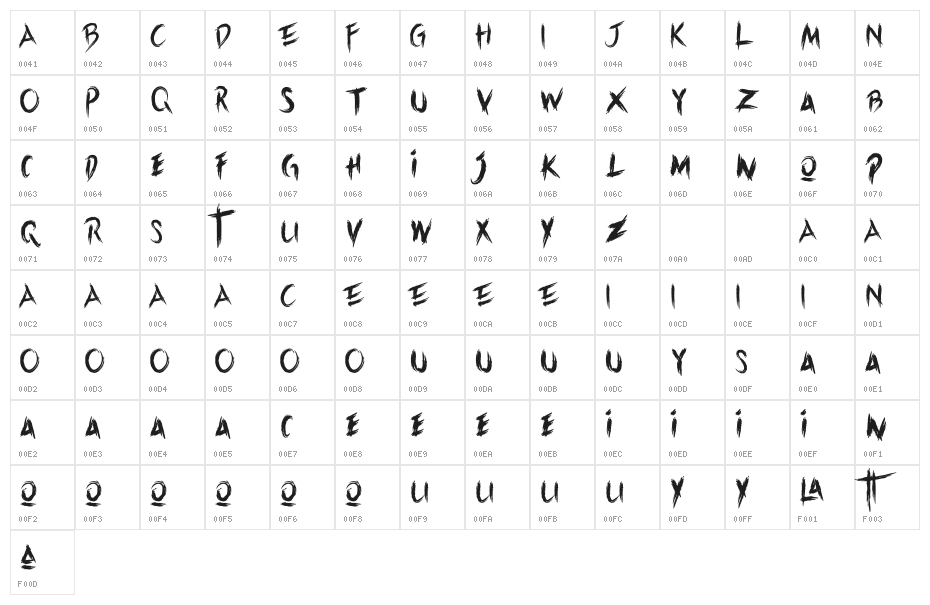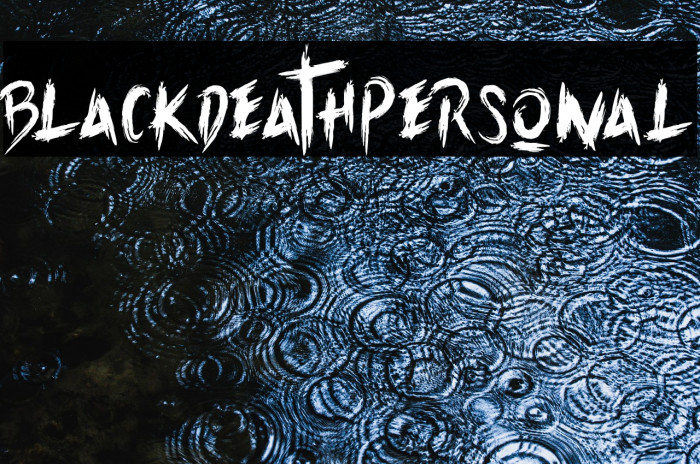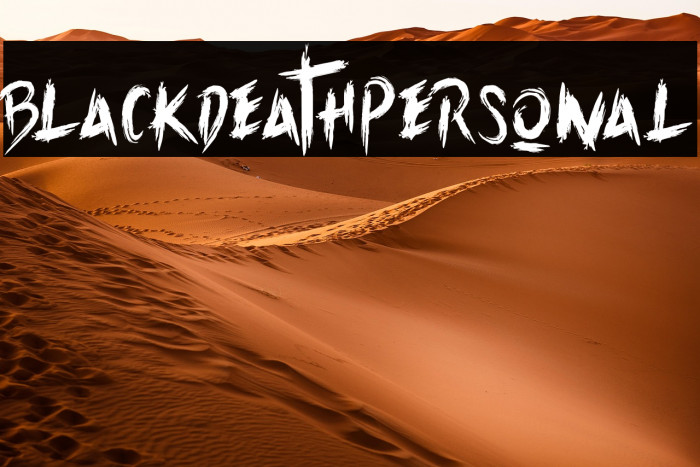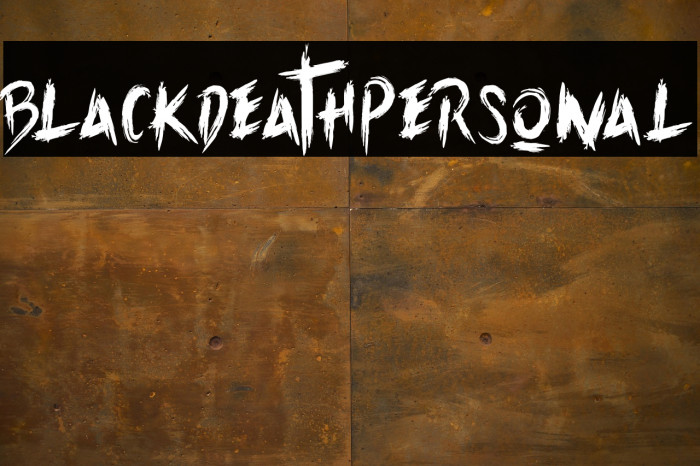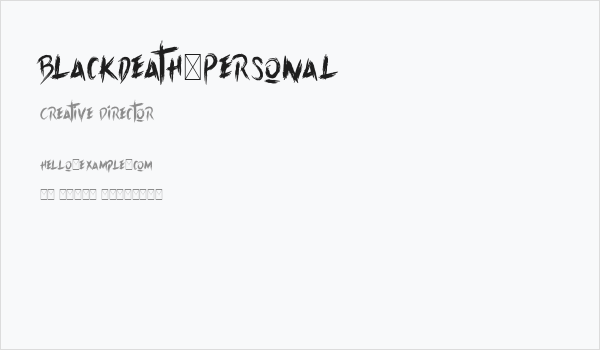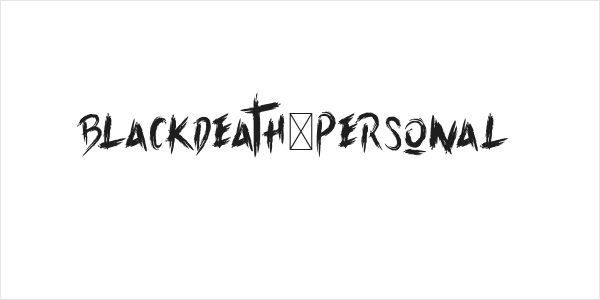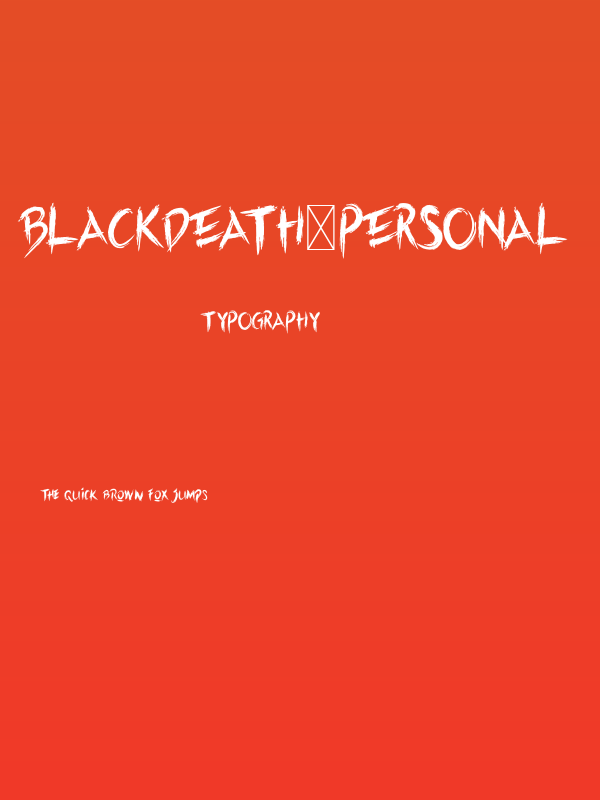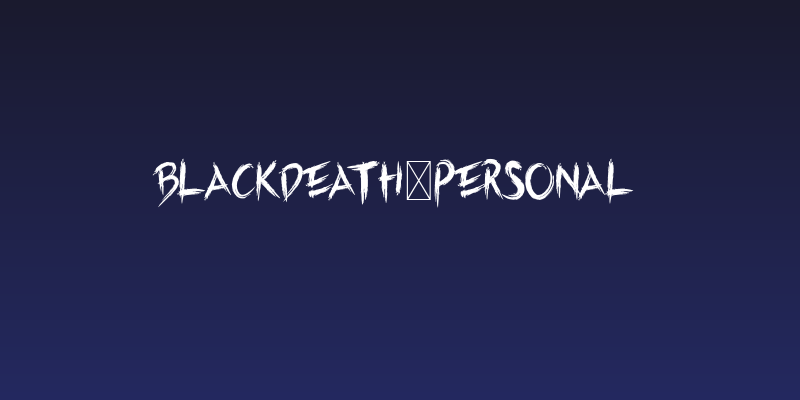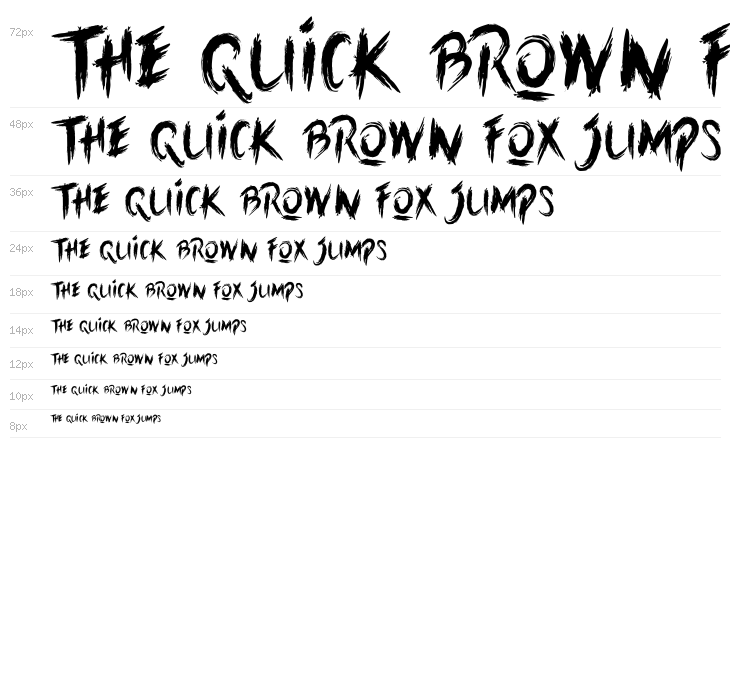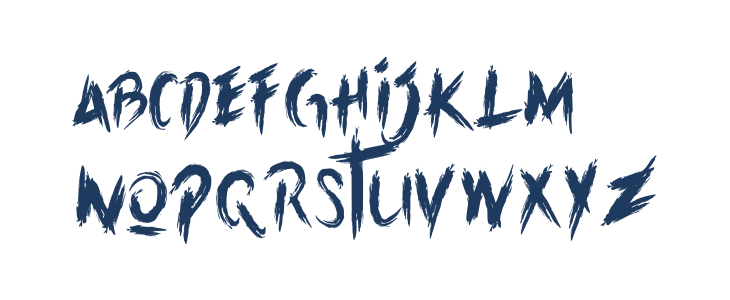
Blackdeath-Personal Font
Blackdeath-Personal Description
This font features a bold, aggressive style with sharp, jagged edges that give it a raw, hand-drawn appearance. The strokes are uneven and dynamic, resembling brush strokes or scratches, which contribute to its intense and dramatic look. The uppercase and lowercase letters maintain a consistent style, with each character exhibiting unique variations in stroke direction and thickness. This font is highly decorative and makes a strong visual impact, suitable for projects that require a bold and edgy aesthetic.
| Proposed Projects | Ideal for horror-themed designs, music album covers, posters, and any project requiring a dramatic and edgy typeface. |